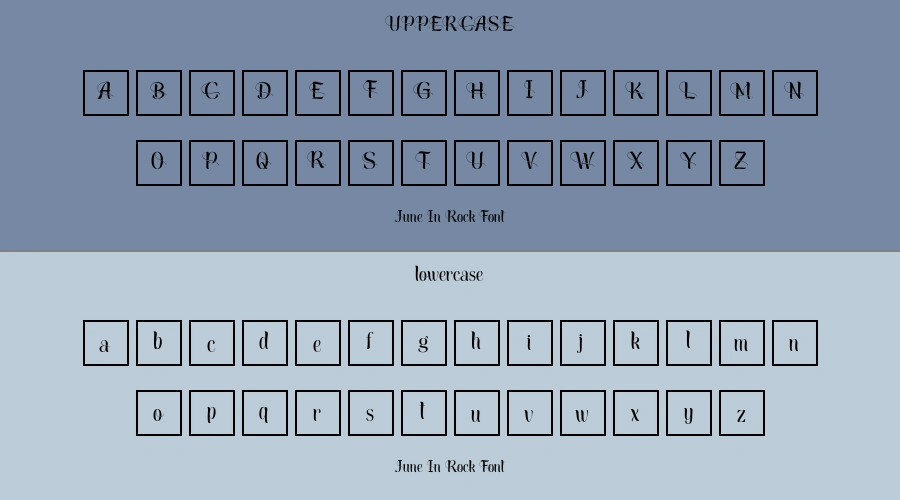
About June In Rock Font
June In Rock Font stands out for its distinctive combination of curved brackets and adaptability. Ideal for presentation decks, it provides the versatility and market appeal that professional projects demand. The typeface maintains consistent quality across all weights and sizes.
Key features include refined consistent rhythm and practical discretionary ligatures, enhancing typographic expression. In digital banners applications, June In Rock Font demonstrates exceptional large format rendering. The stem weight and engineering heritage contribute to its distinctive character and professional appeal.